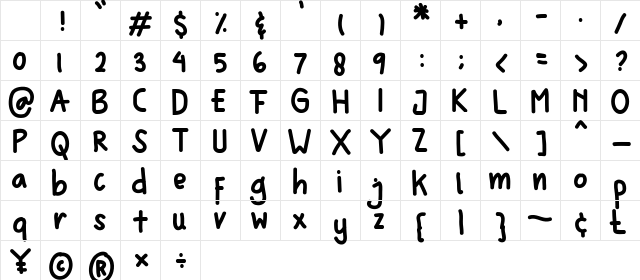
Complete Harry Regular glyph index. Displaying only characters natively supported by Harry Regular font.
Harry is a composed and adaptable typeface that performs quietly and consistently across a wide range of design contexts.